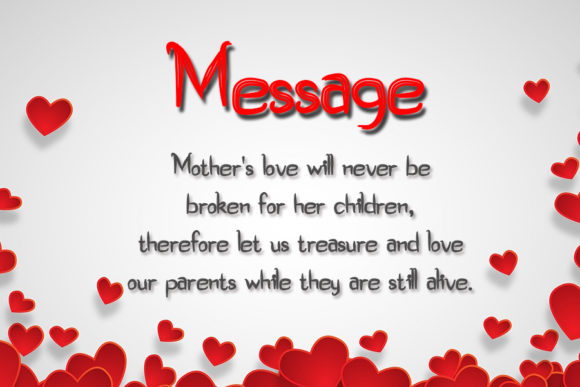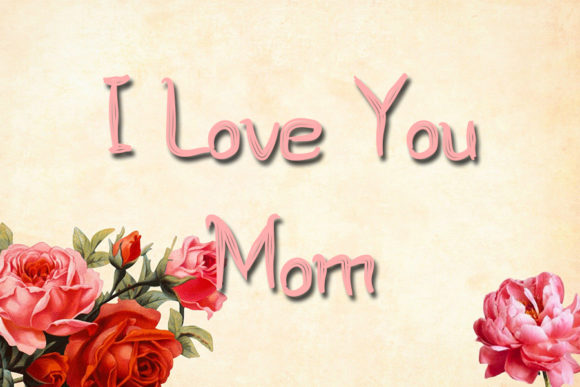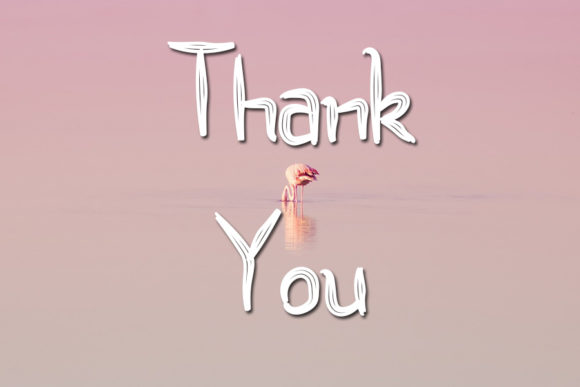
Introduction to Loving Mom Font
As a designer, have you ever been stuck on a project, searching for that perfect font to bring your creative vision to life? You know, that moment when you finally stumble upon a design resource that makes your project stand out from the crowd. For me, that moment happened when I discovered the Loving Mom Font.
This modern display font is more than just a pretty face – it’s a game-changer for designers looking to add a touch of sophistication and elegance to their projects. With its smooth curves and bold style, the Loving Mom Font is perfect for fashion branding, editorial designs, and any other creative project that demands high quality and attention to detail.
Key Features of Loving Mom Font
- High-quality design resource with a loving and caring theme, perfect for a creative project.
- Features a transparent background, making it easy to overlay on different images and backgrounds.
- Unique and cursive script style, ideal for adding a personal touch to invitations, quotes, and other design elements.
Honest Review: Loving Mom Font
I recently stumbled upon the Loving Mom Font, and I must say it’s been a pleasant surprise. As a designer, I’m always on the lookout for high-quality fonts to elevate my creative projects. The Loving Mom Font is a beautiful, hand-drawn script that’s perfect for adding a personal touch to any design.
- ✨ What works well: The font is incredibly versatile and can be used for a wide range of designs, from birthday cards to wedding invitations. The transparent background makes it easy to layer over other elements without compromising the overall design.
While the Loving Mom Font is a great design resource, there are a few limitations to consider. The font may not be suitable for bold, block-style text, as it can become difficult to read.
- ⚠️ Limitation: The font may not be suitable for use in smaller sizes, as the script style can become hard to read.
Overall, I’m impressed with the Loving Mom Font. It’s a beautiful, high-quality design resource that’s perfect for adding a personal touch to any creative project.
The Loving Mom Font is perfect for various design projects, including greeting cards, invitations, and social media graphics. It’s also great for creating custom typography for blog posts, quotes, and other written content.